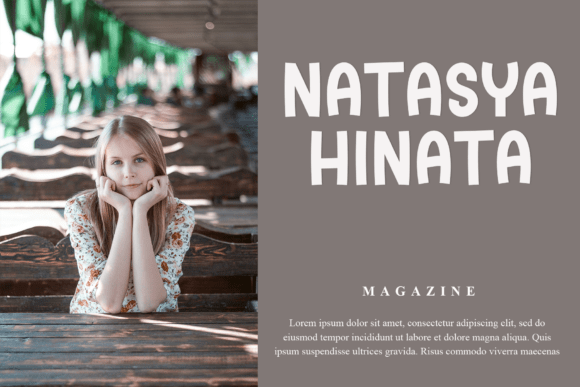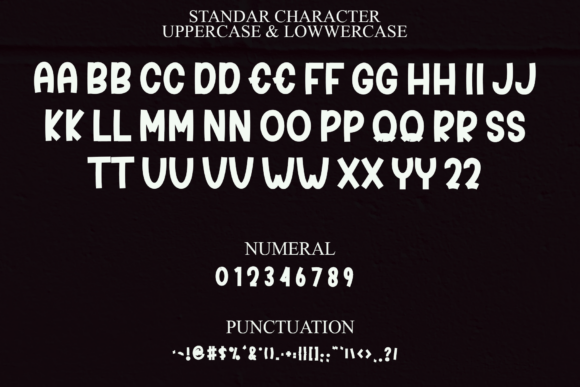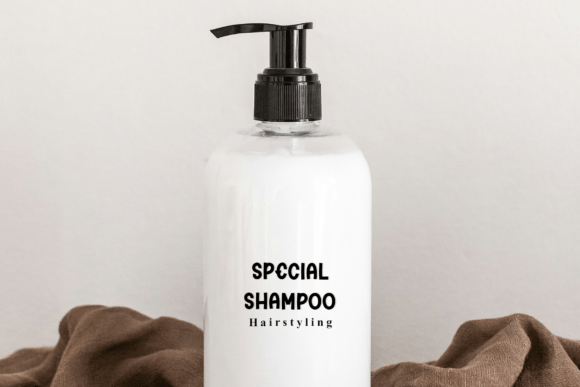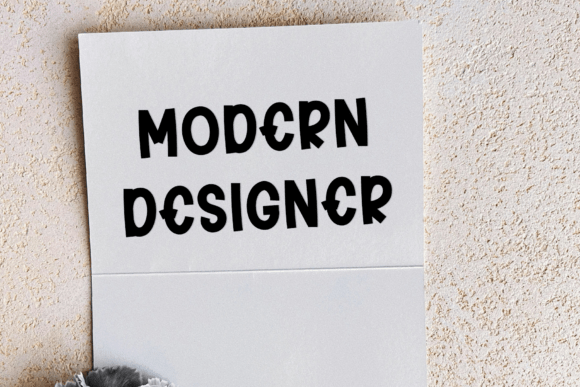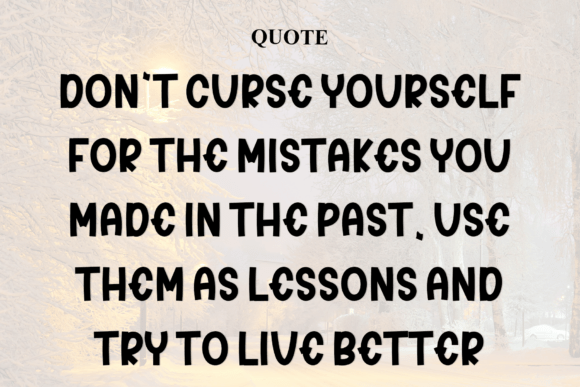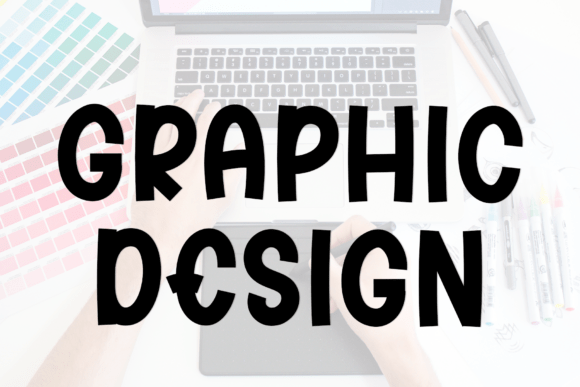
The Designer Font: A Sweet and Friendly Handwritten Delight
I’ll never forget the moment I stumbled upon the Designer font. I was working on a project for a client who wanted a warm and inviting look for their branding. I had spent hours scouring the internet for the perfect font, but nothing seemed quite right. That was until I discovered Designer – a sweet and friendly handwritten font that instantly captured the essence of what I was looking for.
I’ve had the pleasure of working with the Designer font for several projects now, and I must say, it’s become a staple in my design toolkit. Here’s what I love about it:
- ✨ Natural and unique style: The Designer’s handwritten style is incredibly authentic and distinctive, making it perfect for a wide range of designs.
- ✅ Versatility: This font can be used for everything from branding and packaging to social media graphics and blog posts.
- 💕 Emotional connection: The warm and friendly feel of the Designer font helps create an instant emotional connection with your audience.
Of course, no font is perfect, and there are a few quirks to be aware of:
- 🤔 Limited use in very formal contexts: While the Designer font is incredibly versatile, it may not be the best choice for very formal or corporate designs.
- ⚠️ Some letters may require adjustment: As with any handwritten font, some letters may require adjustment to ensure proper spacing and alignment.
- Experiment with OpenType features, glyphs, and stylistic alternates to add more personality to your text.
The Story Behind the Designer Font
The Designer font was created with the intention of providing a warm and friendly handwritten font for designers. While the exact story behind its creation may be unknown, it’s clear that the Designer font has been crafted with love and care to bring a touch of personality to any design.
| What makes the Designer font so special? | The Designer font’s natural and unique style makes it incredibly fitting for a wide range of designs, from formal to informal. |
| Is the Designer font suitable for body text? | While the Designer font is beautiful, it may not be the best choice for long-form body text due to its handwritten nature. |